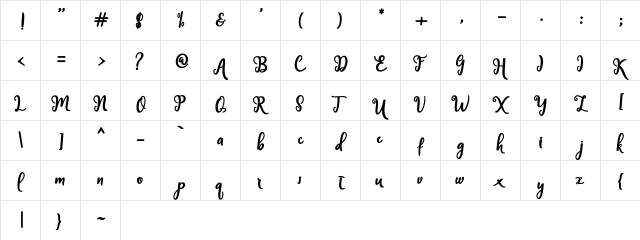
Handley Regular
Handley brings a calligraphic fluidity to the page — its connecting strokes and expressive curves give it an unmistakably human quality.
Font Pairing: Combine Handley with a simple geometric sans for maximum contrast — the tension between flowing curves and clean structure is a classic typographic pairing.
Pro Tip: Pair Handley with a clean sans-serif for supporting text. The contrast between fluid script and geometric structure creates an elegant typographic hierarchy.